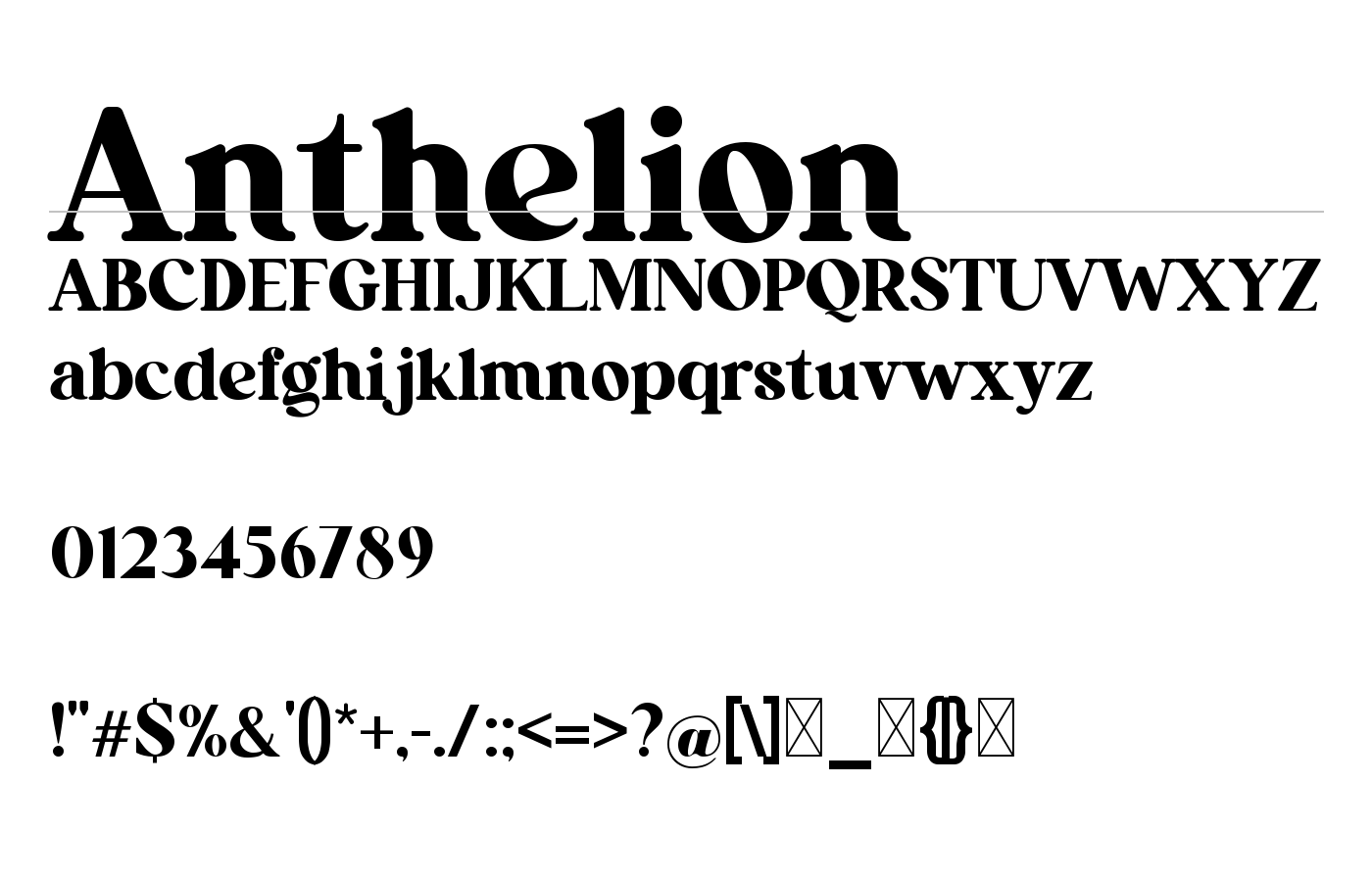
Anthelion is a bold serif font with a classic, sophisticated feel, featuring strong contrast between thick and thin strokes and bracketed, slightly flared serifs. Its sturdy letterforms with high x-height and unique details like the curved tail on the lowercase "g" and elegant curves make it ideal for powerful headlines, editorial design, and luxury branding. This font conveys a sense of tradition and authority while maintaining a modern edge, making it perfect for use in fashion, magazines, and upscale packaging.
Anthelion Font